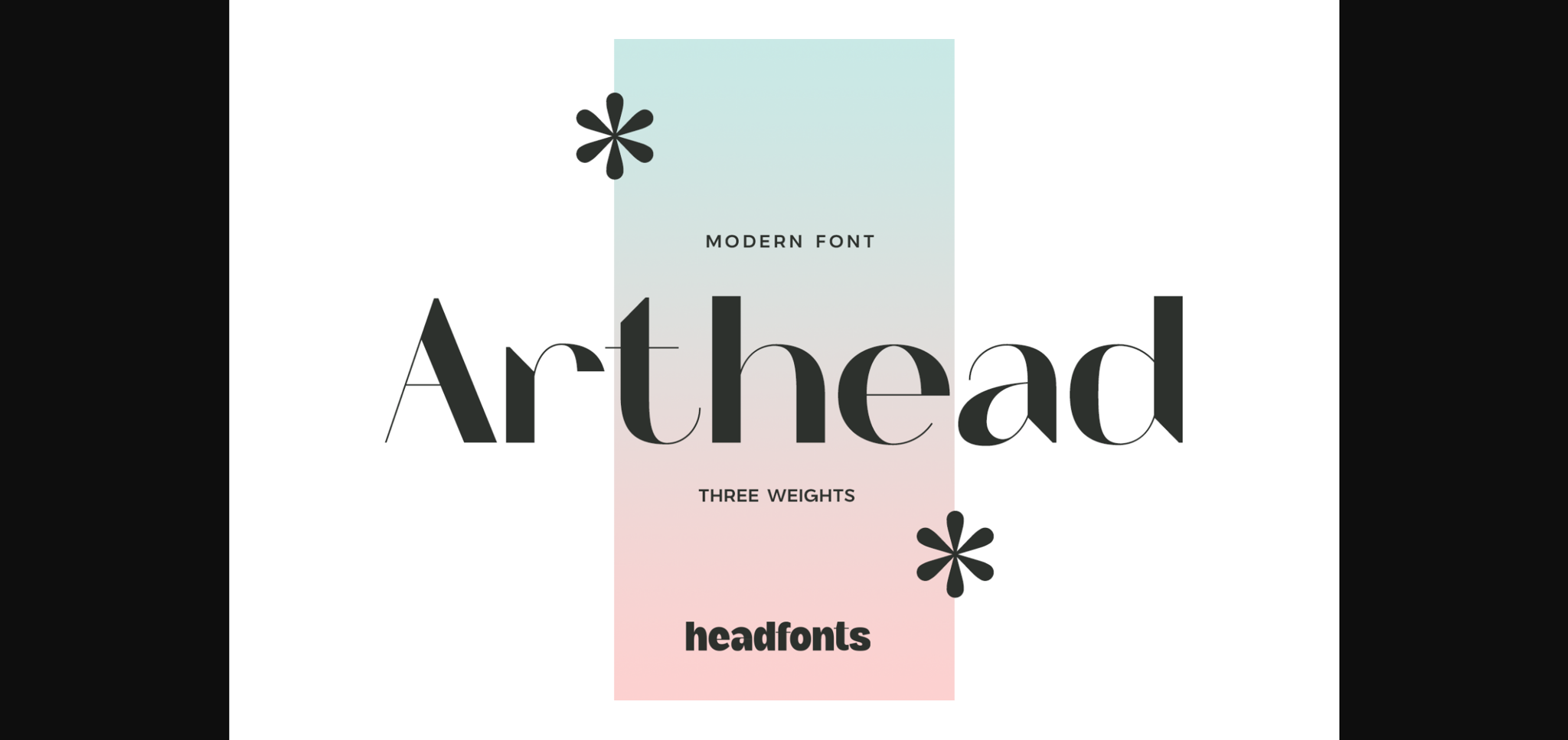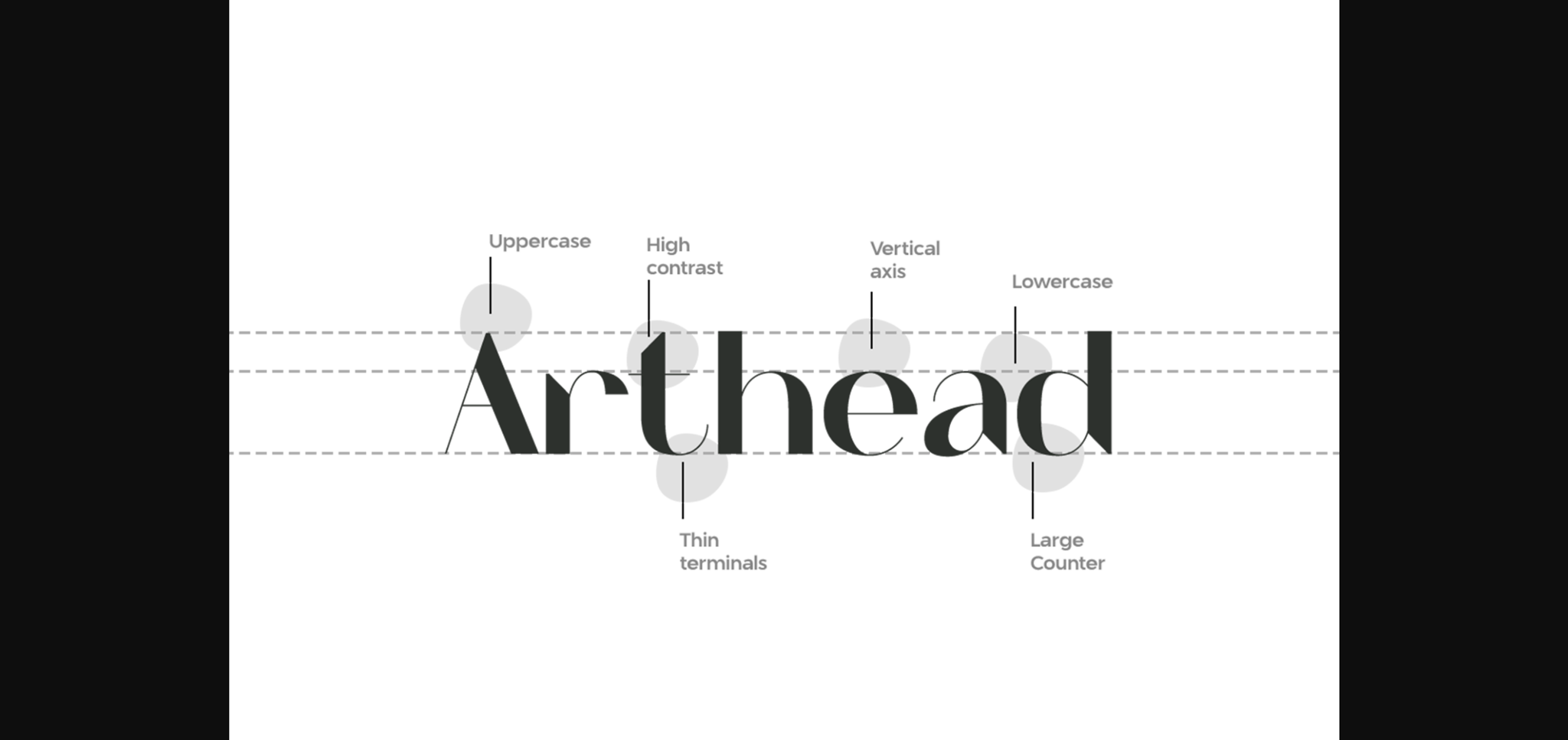
About Arthead Font
Arthead is an elegant and assertive sans serif font. Incredibly versatile, this font fits a wide pool of designs, elevating them to the highest levels. Add this font to your favorite creative ideas and notice how it makes them come alive!